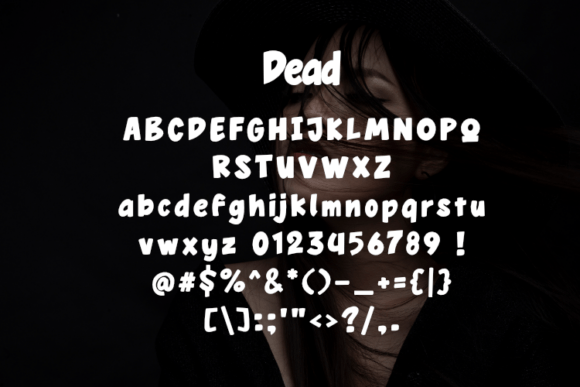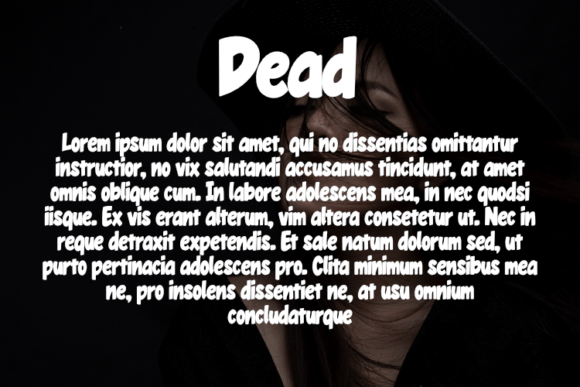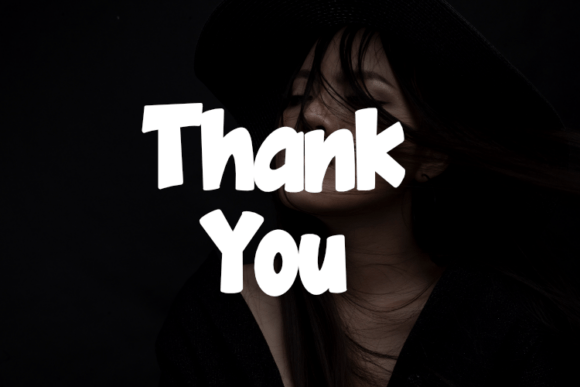
Unlock Endless Design Possibilities with Introduction Dead Font
Are you a designer, crafter, or DIY enthusiast looking for a font that can elevate your creative projects to the next level? Look no further than the Introduction Dead font, a versatile and artistic typeface designed to turn any product into a stunning work of art. In this article, we’ll explore the features and benefits of this incredible font, and how it can help you unleash your full design potential.
The Ultimate Design Companion
Introduction Dead font is specifically crafted for designers, crafters, and makers who need a reliable and creative font for their projects. Whether you’re designing t-shirts, clothing, accessories, or any other product, this font is the perfect companion to help you create visually striking and professional-looking designs. With its unique and artistic style, Introduction Dead font is sure to make your products stand out from the crowd.
One of the key benefits of Introduction Dead font is its incredible versatility. This font is designed to work seamlessly with a wide range of designs, from bold and edgy to elegant and sophisticated. Whether you’re creating a simple text-based design or a complex composition, Introduction Dead font adapts effortlessly to your creative vision. Its flexibility makes it an excellent choice for designers who work on diverse projects, from fashion and apparel to home decor and accessories.
Unleash Your Creativity
Introduction Dead font is more than just a typeface – it’s a creative tool designed to inspire and empower designers. With its unique and artistic style, this font encourages experimentation and creativity, allowing you to push the boundaries of your design work. Whether you’re a seasoned designer or a beginner, Introduction Dead font provides the perfect foundation for creating stunning designs that reflect your personality and style.
- Unique and artistic style: Introduction Dead font features a distinctive and stylish design that’s perfect for creating visually striking products.
- Versatility: This font works seamlessly with a wide range of designs, from bold and edgy to elegant and sophisticated.
- Ready-to-use: Introduction Dead font is a ready-to-use toolkit for magnificent design compositions, saving you time and effort.
Design Possibilities with Introduction Dead Font
With Introduction Dead font, the design possibilities are endless. Here are a few ideas to get you started:
- T-shirts and apparel: Create stunning t-shirts, hoodies, and other apparel items with Introduction Dead font.
- Accessories: Design beautiful accessories like tote bags, phone cases, and jewelry with this versatile font.
- Home decor: Use Introduction Dead font to create eye-catching home decor items like wall art, posters, and stickers.
- Stationery and paper crafts: Add a touch of elegance to your stationery and paper crafts with this beautiful font.
Introduction Dead font is a game-changer for designers, crafters, and DIY enthusiasts who want to create stunning products with a unique and artistic style. With its versatility, compatibility, and ready-to-use design, this font is the perfect companion for any creative project. Unlock the full potential of your designs with Introduction Dead font, and experience the freedom to create without limits.